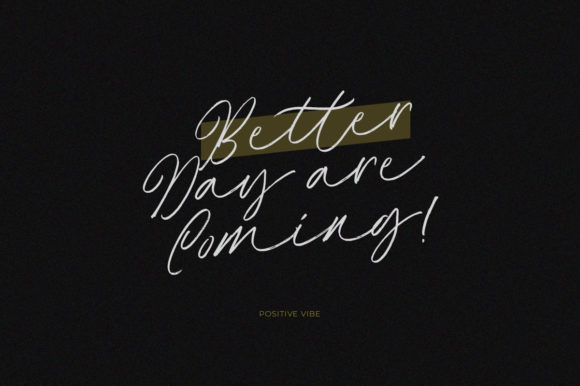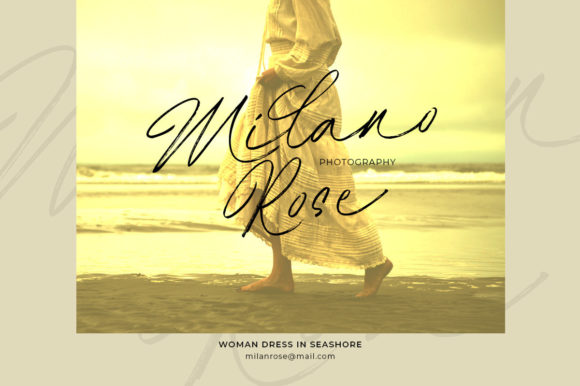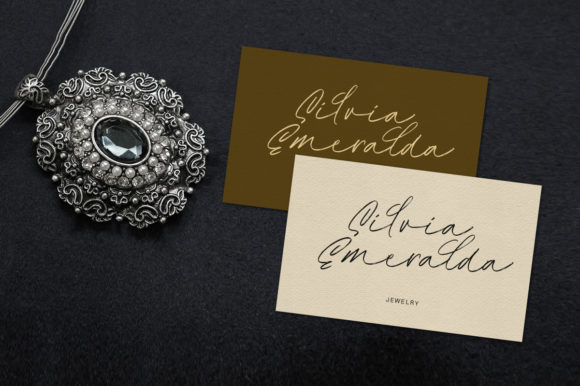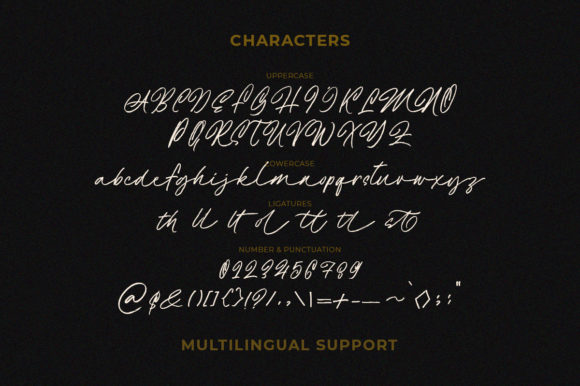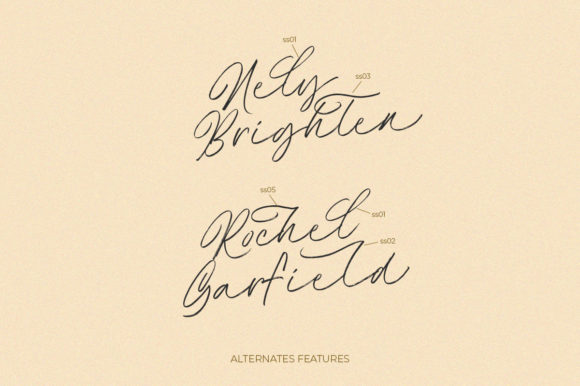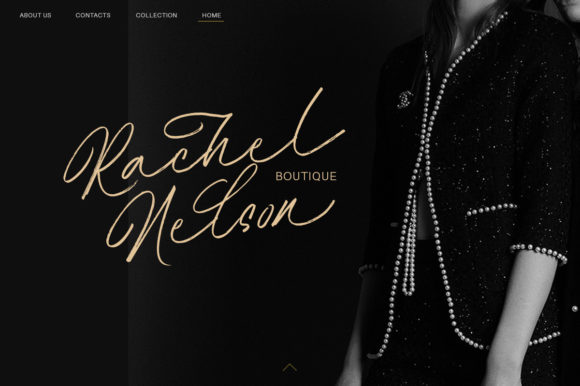
The Perfect Font for Your Masterpiece
Have you ever stared at a blank canvas, trying to bring your creative vision to life, only to feel stuck because the right font is missing? You know, that elusive combination of style and sophistication that elevates your design from good to breathtaking?
Meet the Amelia Bright Font, a delicate script font that’s specifically crafted to add a touch of elegance and class to your designs. Whether you’re working on a wedding invitation, a branding project, or a beautiful typography piece, Amelia Bright Font is the perfect companion to help you achieve your creative goals.
This lovely font is a valuable addition to any designer’s toolkit, offering a refreshing and beautiful look that’s sure to impress. With Amelia Bright Font, you can create stunning designs that exude refinement and sophistication, making it a must-have for any creative professional looking to take their work to the next level.
Amelia Bright Font Key Features
- Unique Characteristics: Amelia Bright Font features a unique blend of modern and elegant design elements, with subtle flair and sophistication, making it ideal for high-end branding and design projects.
- Font Weight: Amelia Bright Font is available in multiple weights, including Light, Regular, Medium, Bold, and Extra Bold, allowing for varying levels of emphasis and visual hierarchy.
Amelia Bright Font Review
I recently had the chance to work with the Amelia Bright Font, and I must say it’s a lovely addition to any design project. Here are some of the things that worked well for me:
- ✨ Elegant and refined aesthetic: The Amelia Bright Font has a classic feel to it, making it perfect for high-end branding and design projects.
- ✨ Excellent legibility: The font is clear and easy to read, even at smaller sizes, making it suitable for a wide range of applications.
- ✨ Beautiful script style: The Amelia Bright Font has a beautiful script style that adds a touch of sophistication to any design.
- ⚠️ Limited font sizes: While the font is beautiful at larger sizes, it can become a bit too ornate at smaller sizes, making it less suitable for body text.
- ⚠️ Limited language support: The Amelia Bright Font may not be compatible with certain languages or character sets, which could limit its use in certain projects.
Overall, I think the Amelia Bright Font is a great choice for designers looking to add a touch of elegance and sophistication to their projects. While it may have some limitations, its beauty and refinement make it well worth considering.
Tip: Use Amelia Bright font for titles and headings to add a touch of elegance to your design.
Tip: Use Amelia Bright font for headings and titles to add a touch of sophistication to your design.
Tip: Use Amelia Bright font for headings and titles to add a touch of elegance to your presentation or document.
Amelia Bright font is ideal for:
- Personal branding and logos
Remember to use Amelia Bright font consistently throughout your design to create a cohesive and professional look.